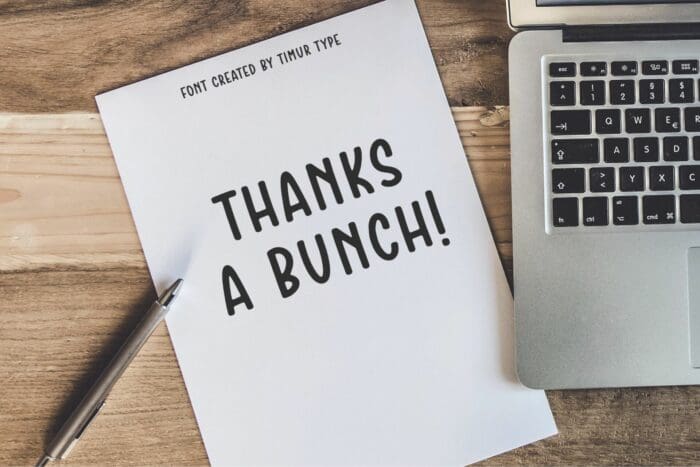
Crumble Bakery Font
Crumble Bakery is a fresh and neat handwritten font. Incredibly versatile, this font is suitable for a wide spectrum of applications.